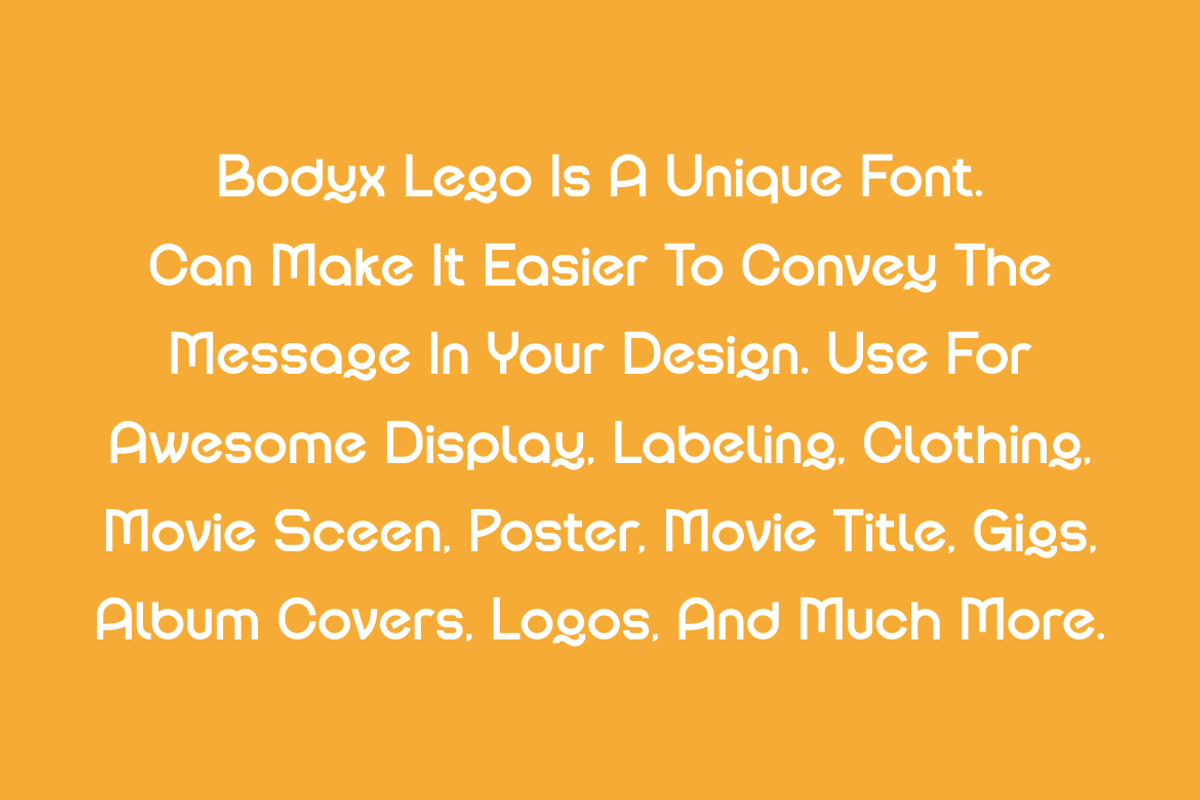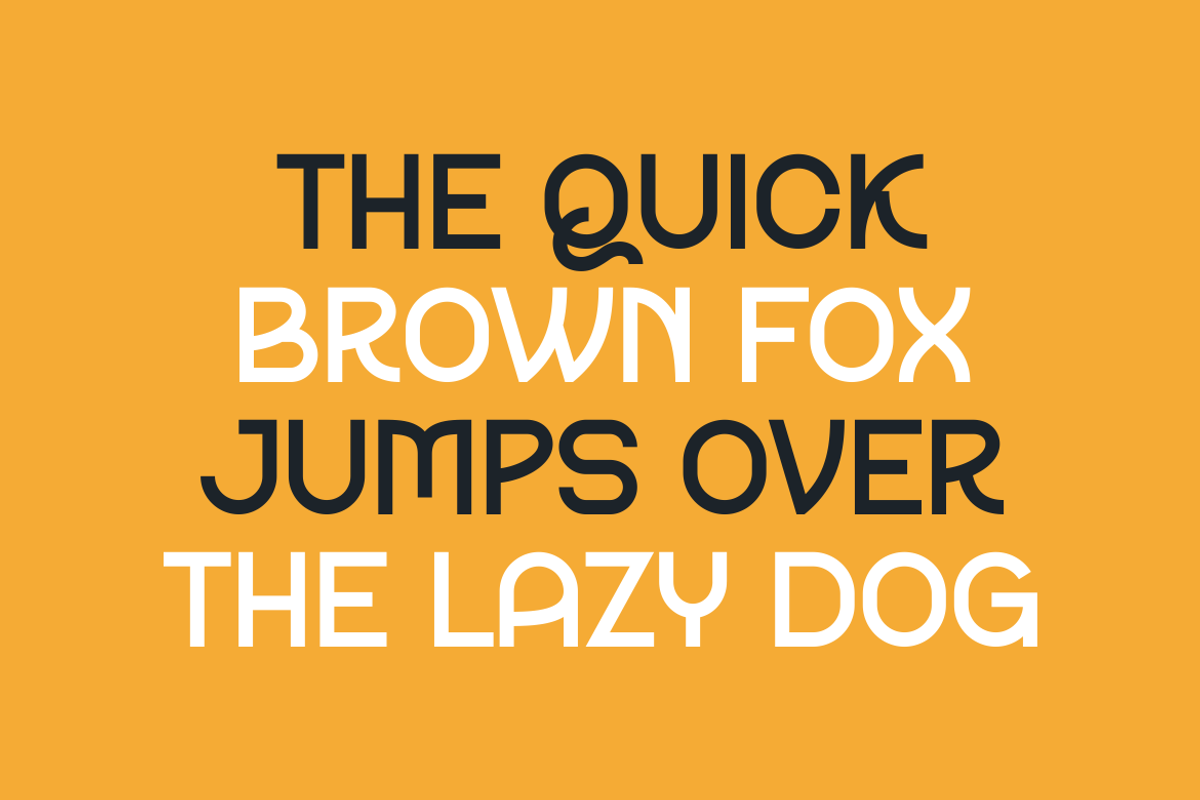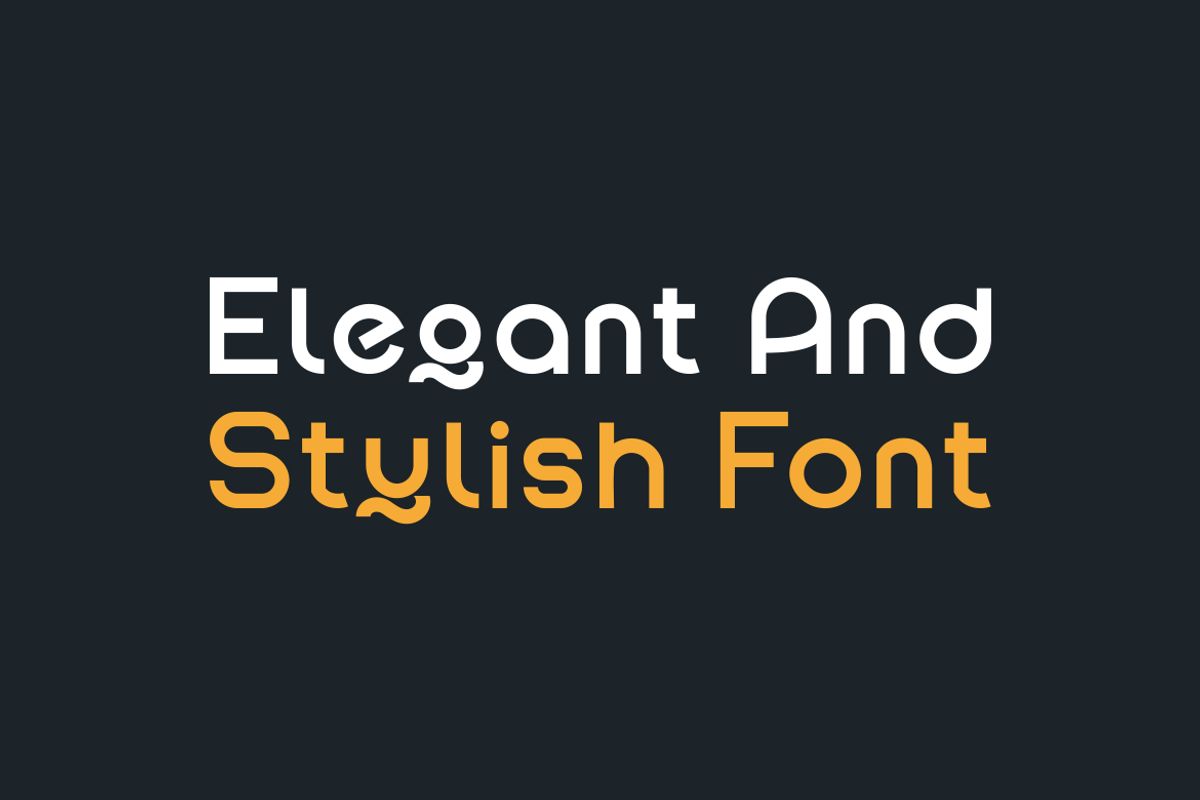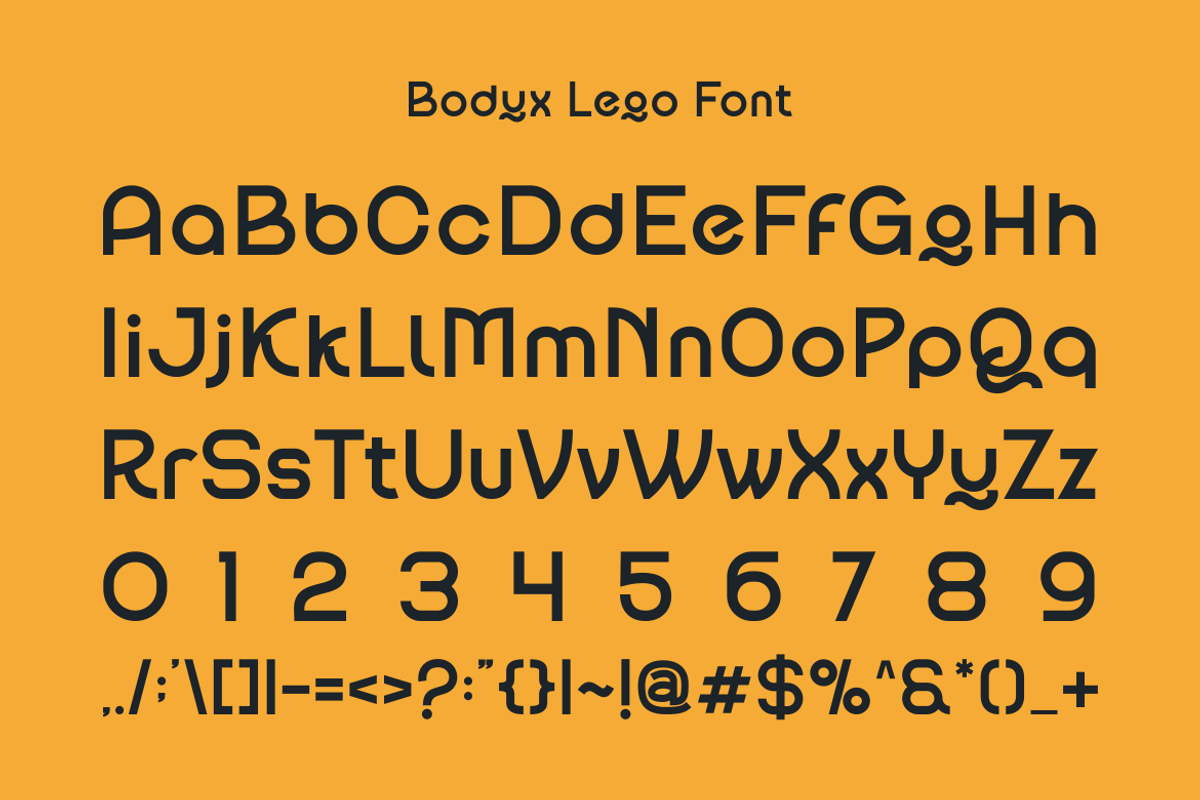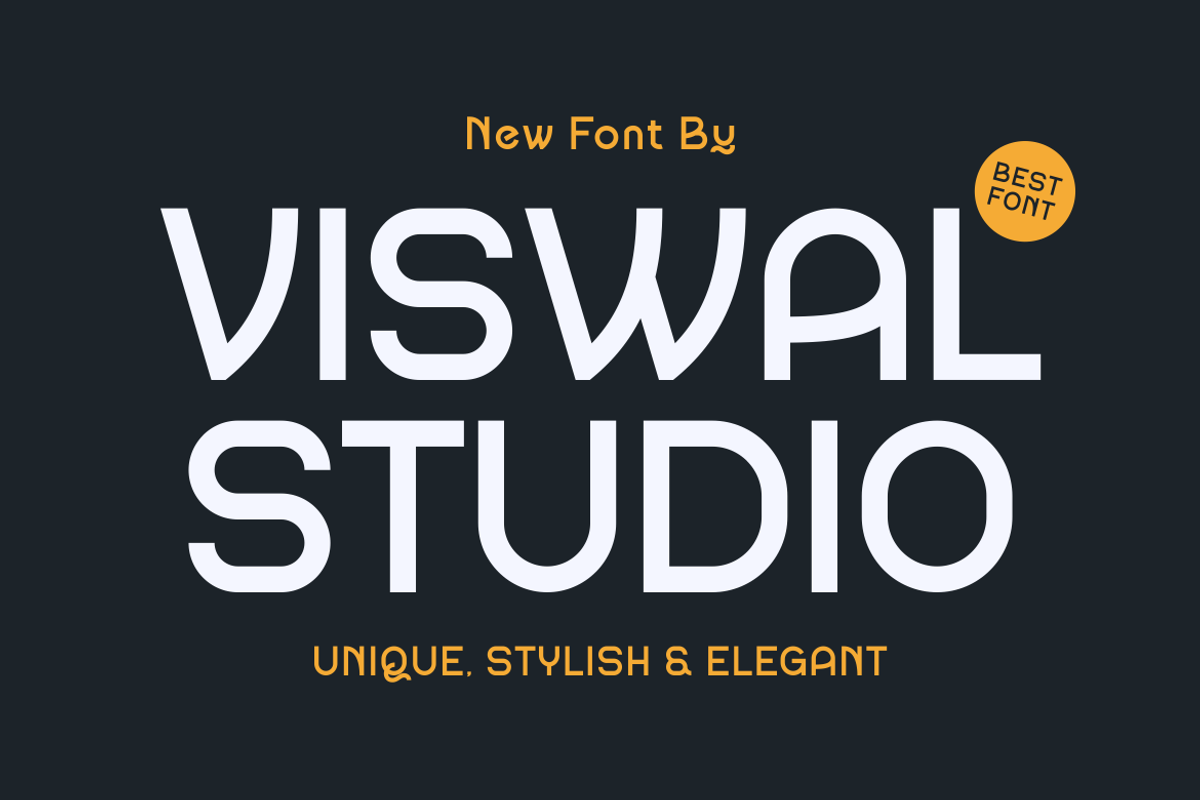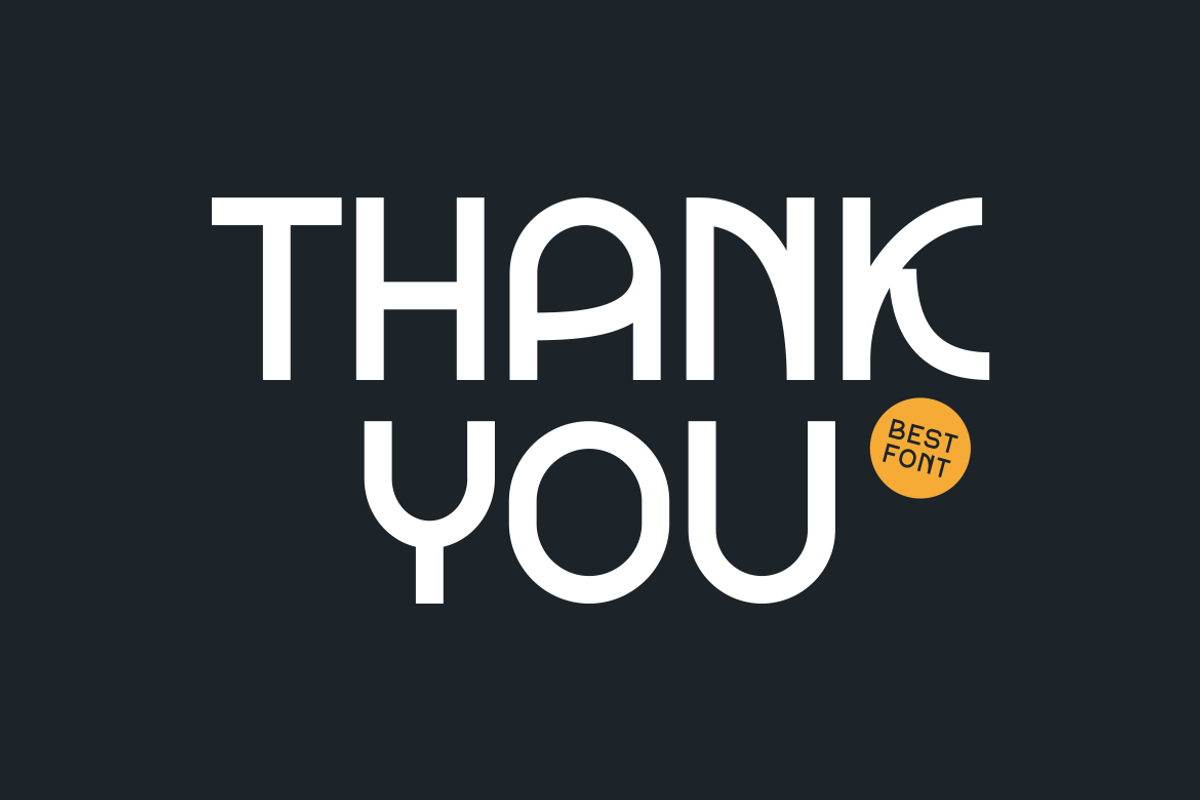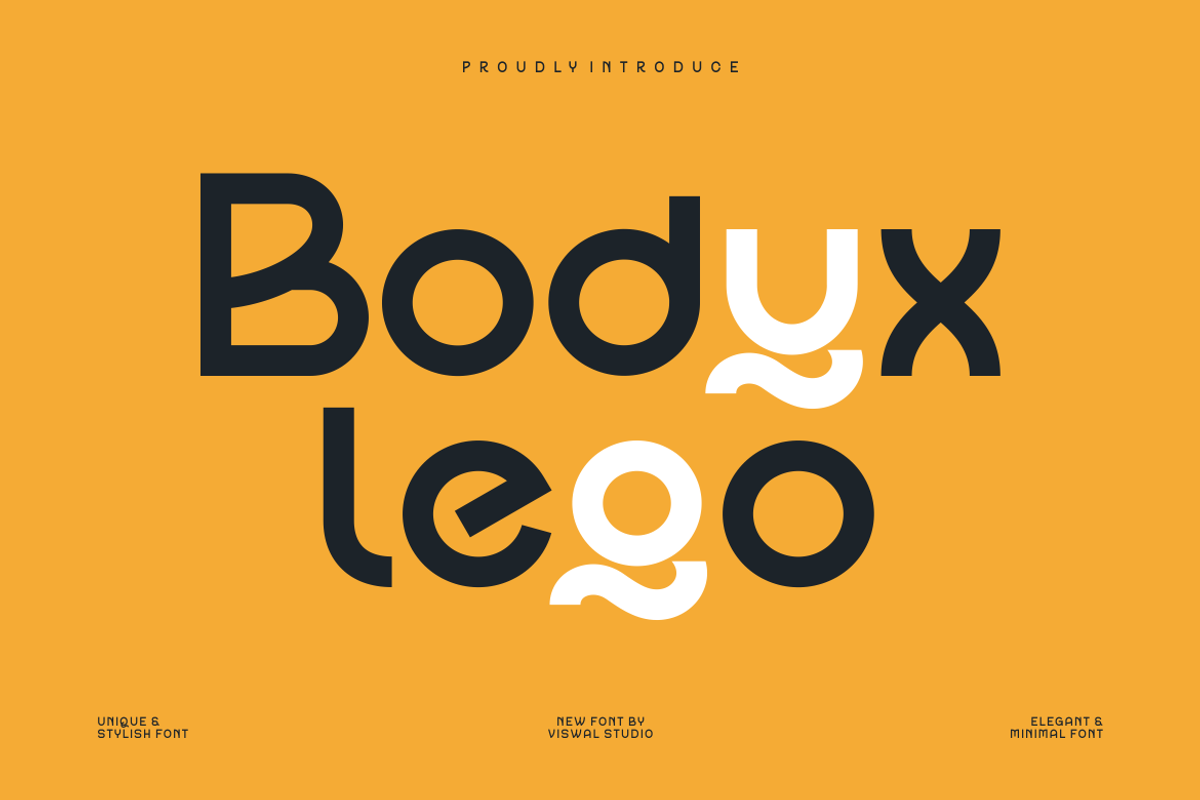
Bodyx Lego - Modern Unique Font
Presenting Bodyx Lego Is A Modern Unique Font
Can Make It Easier To Convey The Message In Your Design. Font Is Suitable For Logo, Labels, Badge, Branding, Magazine, Poster, Title, Gigs, Covers And Etc. Our Fonts Have Uppercase & Lowercase, Numeral & Punctuation, And Opentype Features. For Amazing Designs You Can Mix With Other Fonts As A Complement.